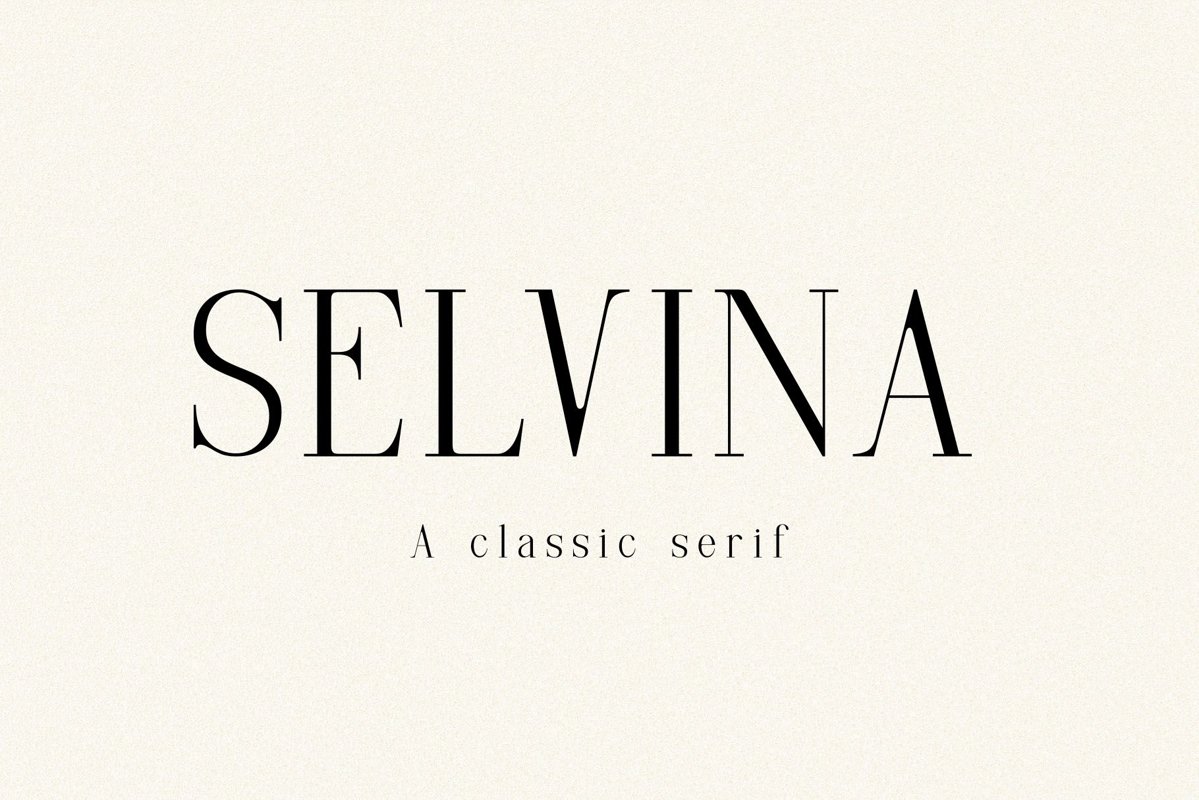
Selvina//a classic serif
Selvina
Selvina Italic
Selvina is a classic Caslon style serif typeface. It's thick curves give a 70s groovy vibe with the serifs bringing it slightly back to traditional. This versatile font can be used for wordmark logos, mastheads, pull quotes & monograms showing both feminine and masculine qualities.